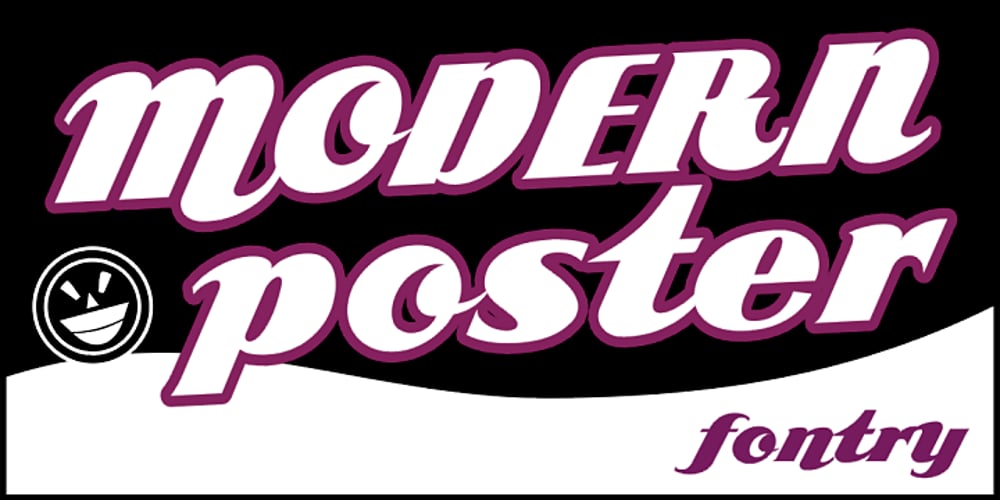
ARB 85 Poster Script Font Family was designed by Alf R. Becker, Michael Gene Adkins and published by The Fontry. ARB 85 Poster Script contains 2 styles and family package options. Beginning in January, 1932, Becker, at the request of then-editor E. Thomas Kelly, supplied SIGNS of the Times magazine’s new Art and Design section with an alphabet a month, a project predicted to last only two years. Misjuding the popularity of the “series,” it instead ran for 27 years, ending finally two months before Becker’s death in 1959, for a grand total of 320 alphabets, a nearly perfect, uninterrupted run. In late 1941, almost ten years after the first alphabet was published, 100 of those alphabets were compiled and published in bookform under the title, “100 Alphabets,” by Alf R. Becker. As published in January, 1939, this is the description that accompanied Becker’s 85th alphabet, Modern Poster Script: This is MODERN POSTER SCRIPT–Alphabet No. 85, an attractive style with swing and highly suitable for modern poster and card work. It is heavy and bold, yet graceful, and it can be made with good speed. Once again, a greatly understated description. For the modern user, ARB 85 Poster is a heavy face often relegated to headline and display work. And if you want to be creative, bold outlines play well with the thin strokes you’ll find interspersed amongst the heavy lines that are so prevalent in this font. Many font designers have tackled the task of taking Becker’s incredible achievement from paper to digital, and many claim to treat his work with care and dignity. But the Fontry’s Becker fonts remain the most historically accurate and viable treatments available, arriving in two industry-satisfying versions: CAS (Computer-Aided Signmaking) and DTP (Desktop Publishing).